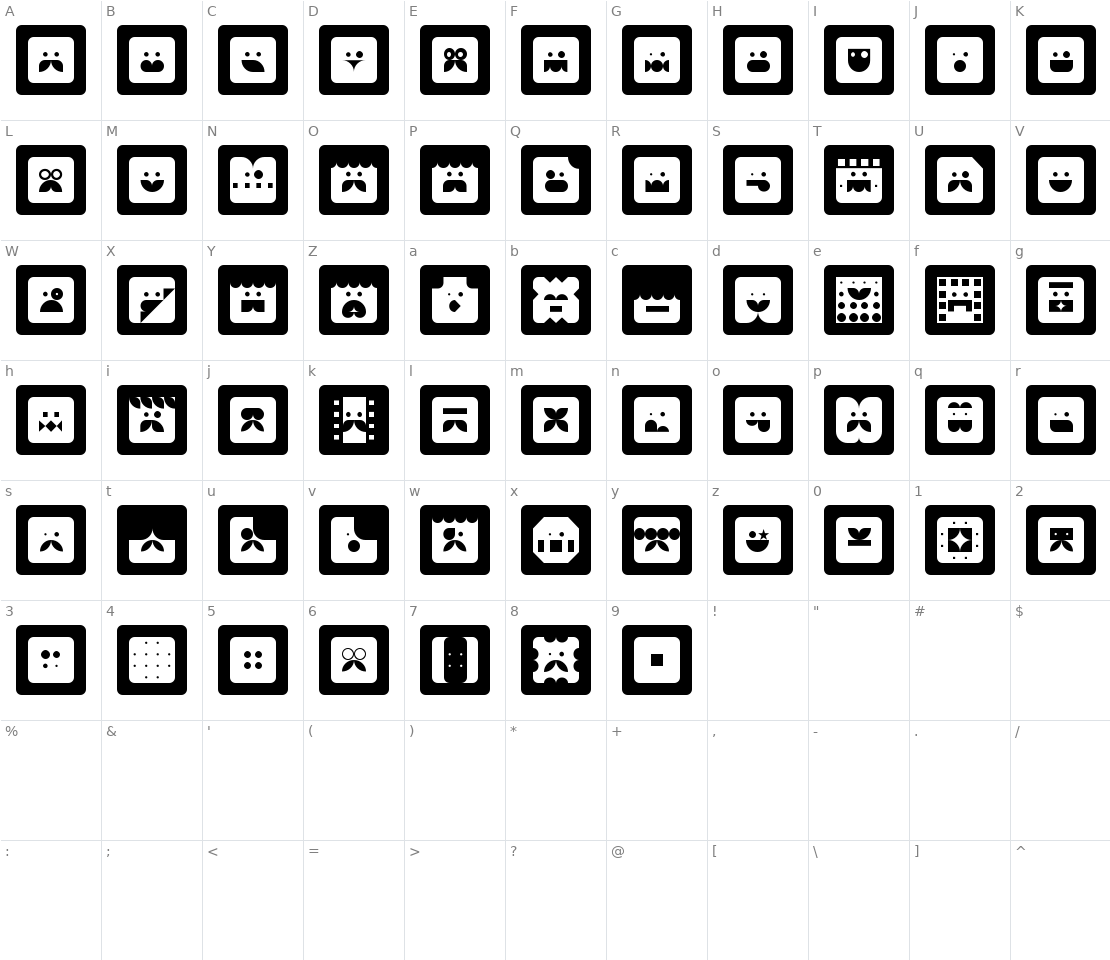
Bloc Face
Bloc Face is a novelty symbol font from Fonts of Chaos made up of square, geometric face icons built on a simple grid. Each glyph is a blocky little emoji-style character with minimal detail, more like pixel-art mood indicators than expressive illustrations. Useful for UI icons, playful infographics, or adding a lo-fi personality to layouts without reaching for a full emoji set.